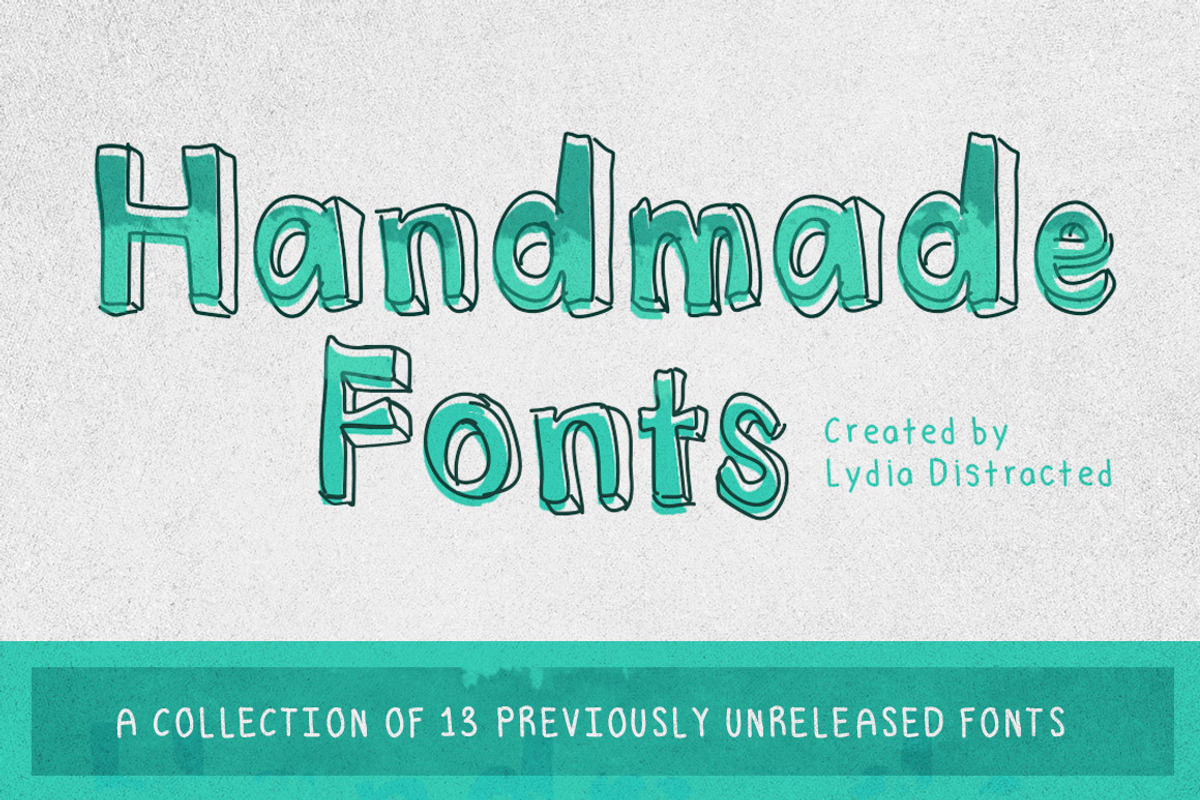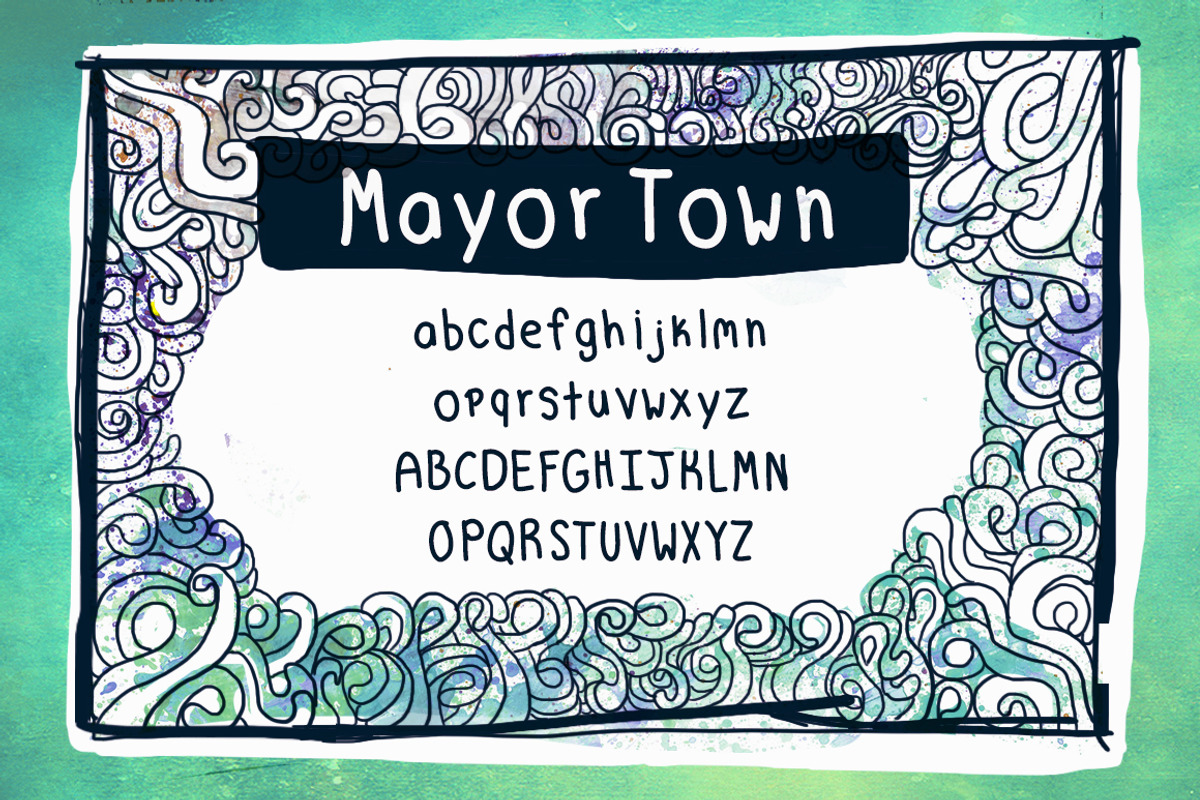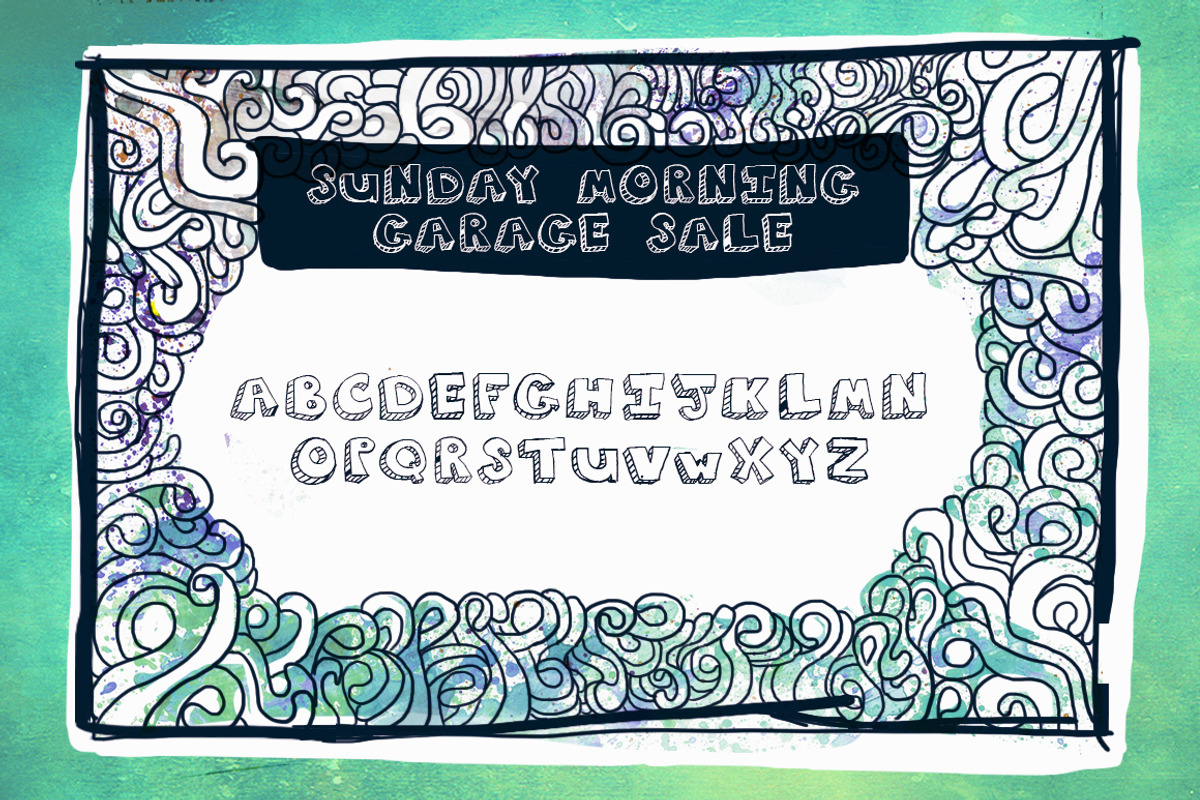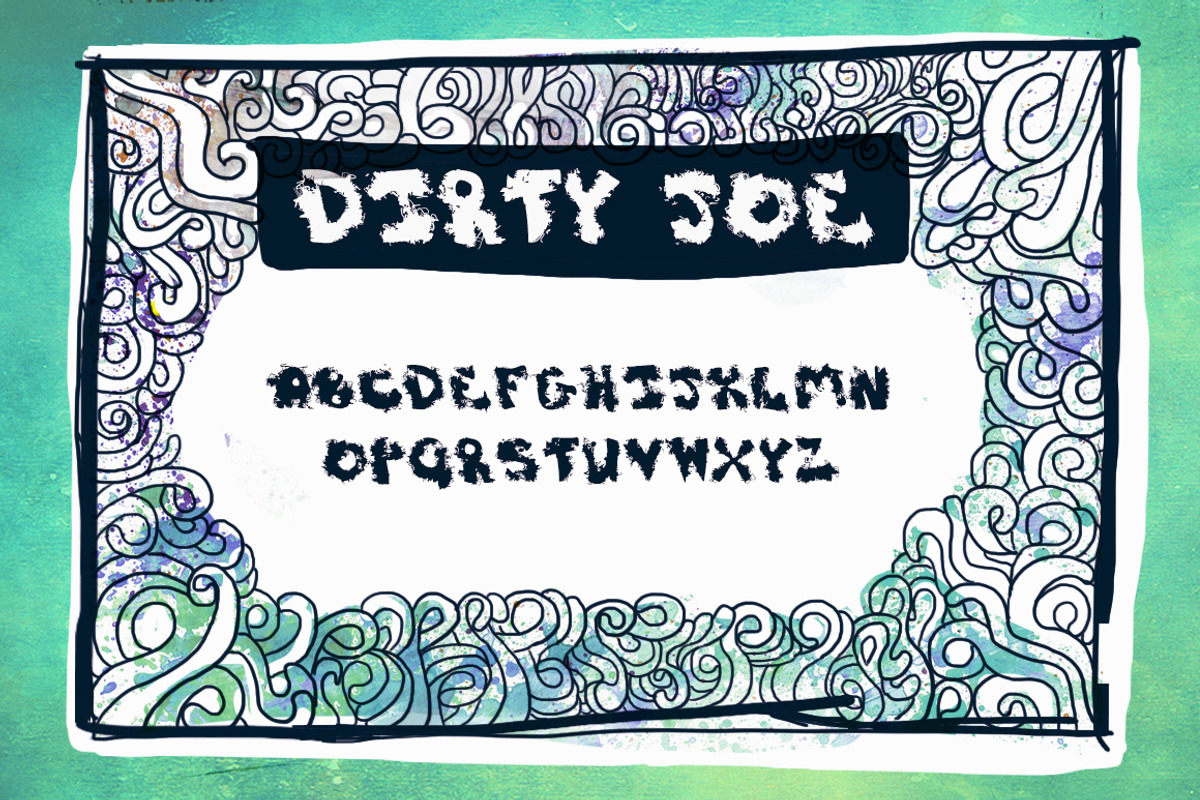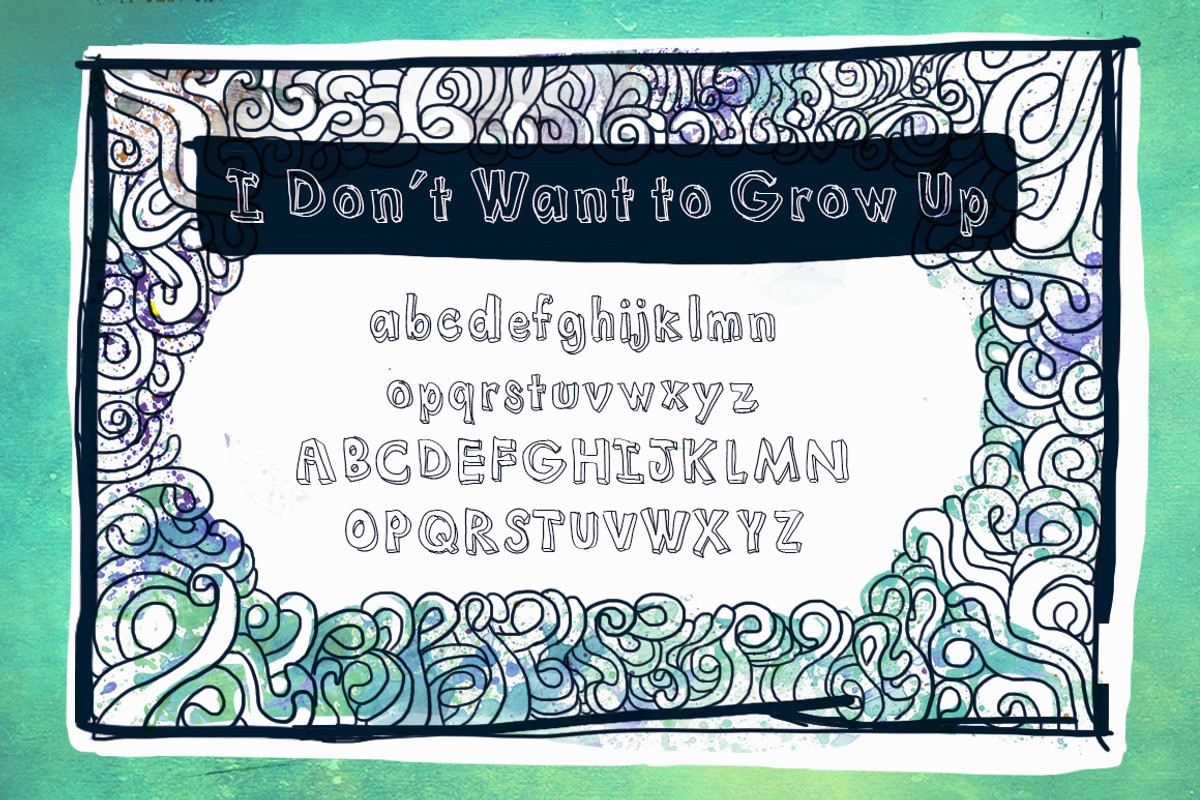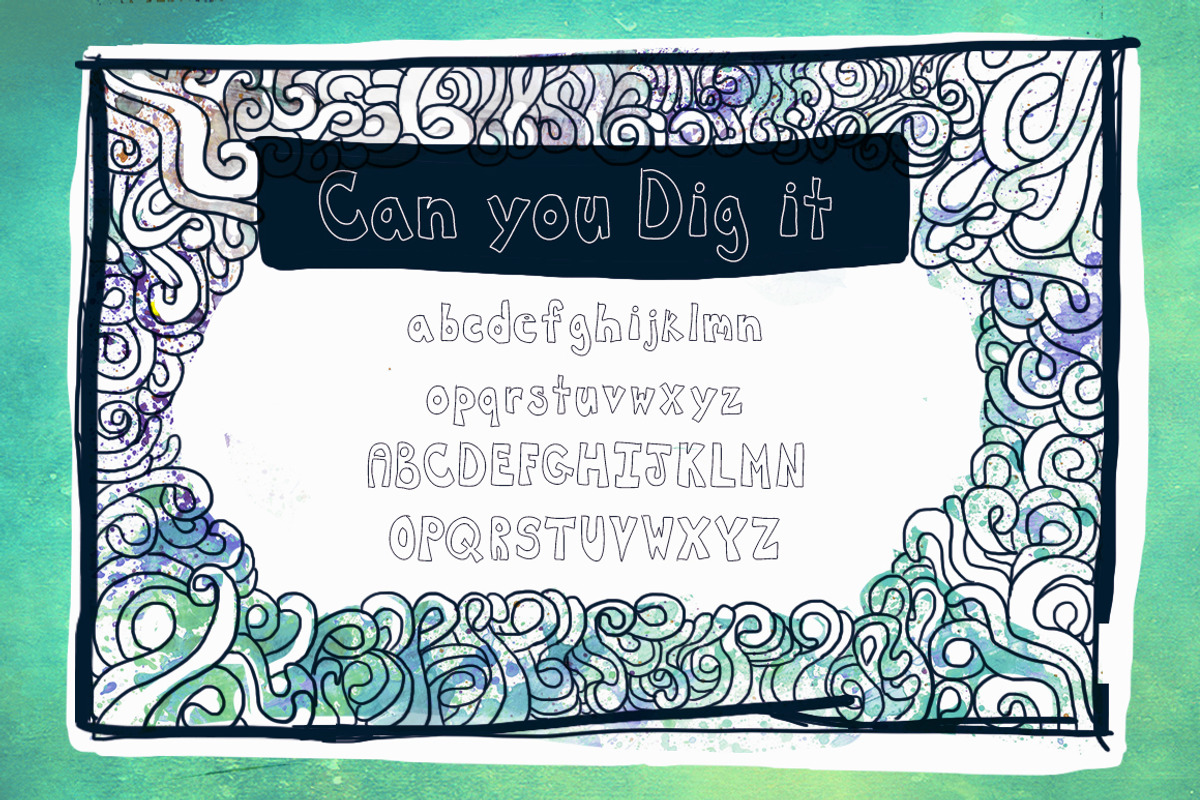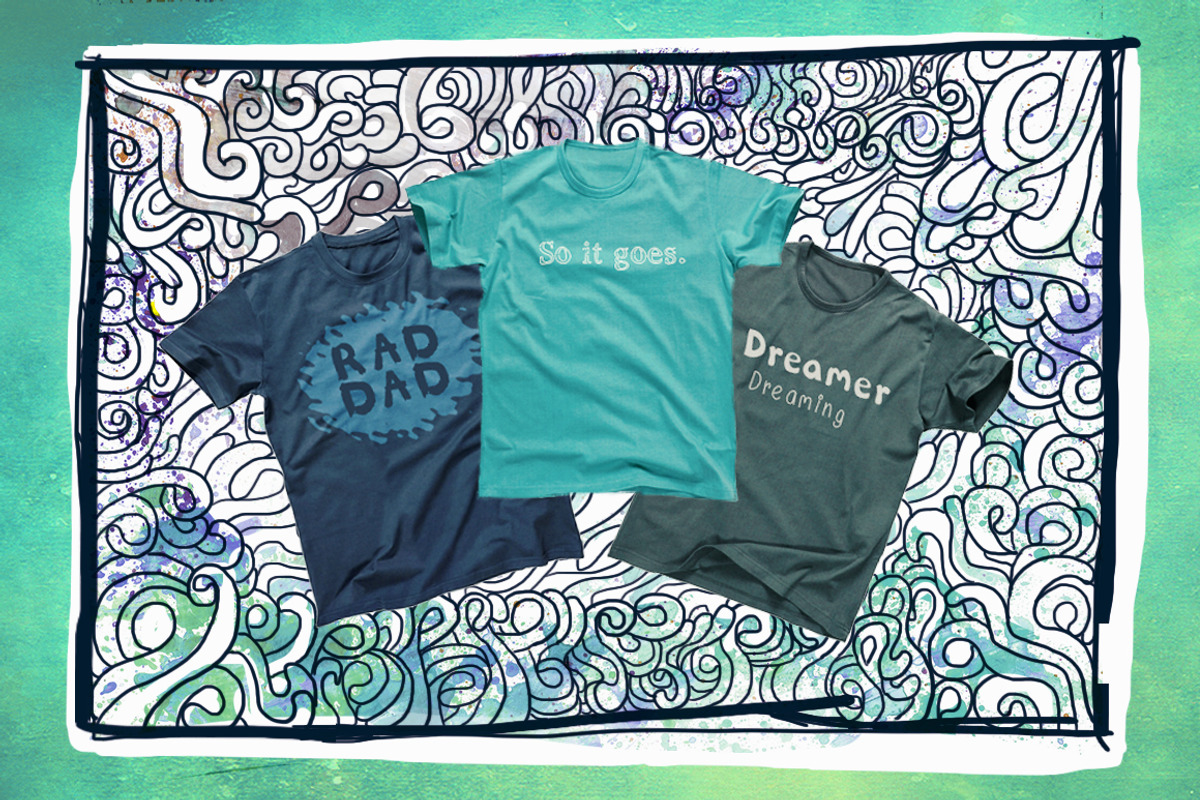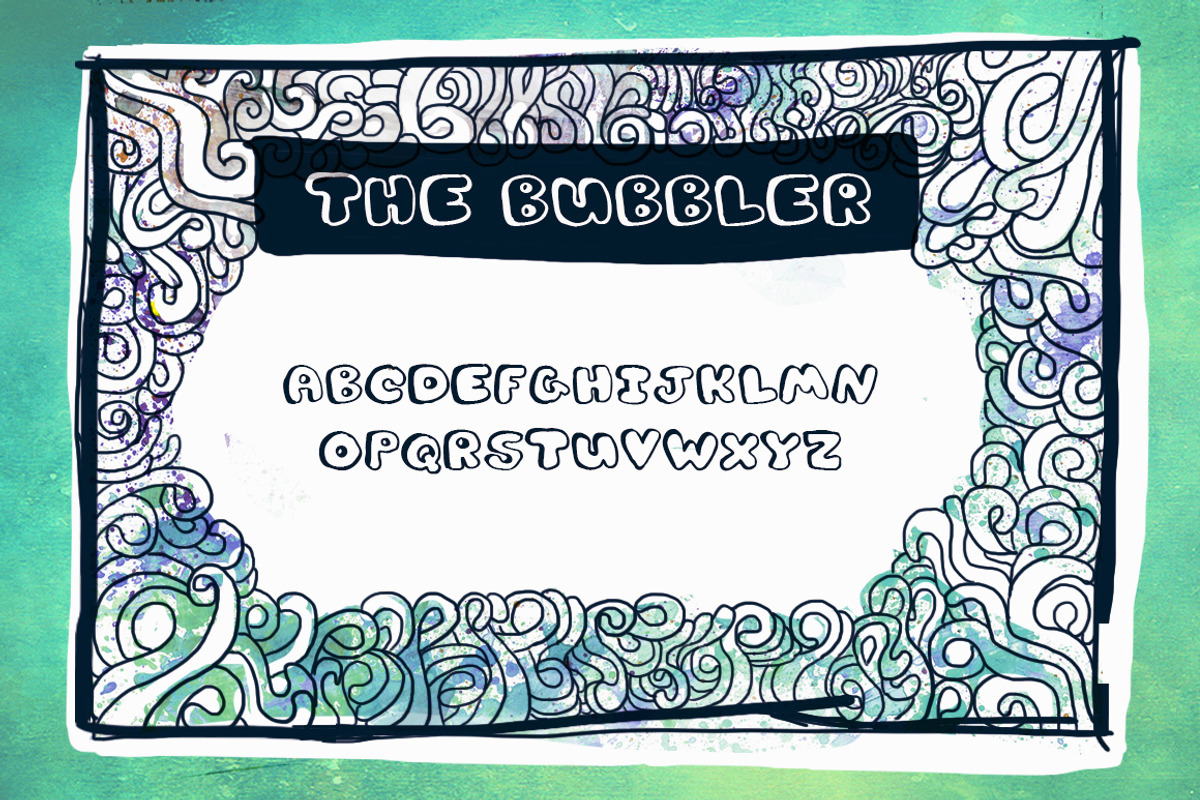
Handmade Fonts Set
Handmade Fonts Set by LydiaDistracted is a font selected for branding, posters, packaging, typography.
- Birthday Party Medium
- CanYouDigIt Medium
- DearDiary Medium
- Dirty Joe Regular
- I Dont Want To Grow Up! Medium
- MayorTown Medium
- Mumbley Joe Regular
- Outlined Medium
- Roll Up Regular
- Sunday Morning Garage Sale Regular
Handmade Fonts Set by LydiaDistracted fits naturally into Branding, posters, packaging, typography.